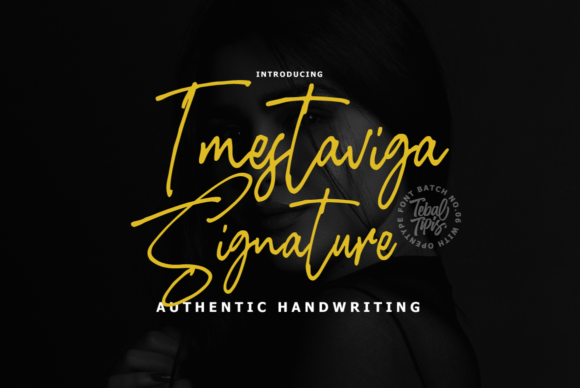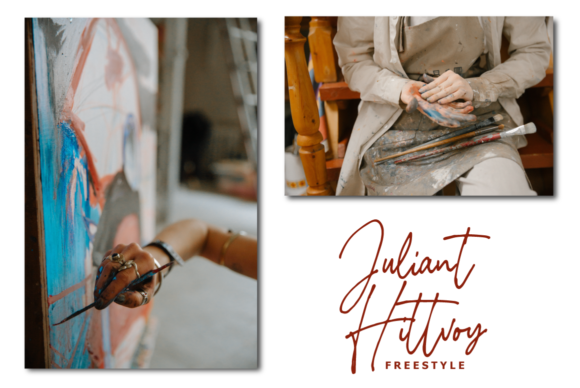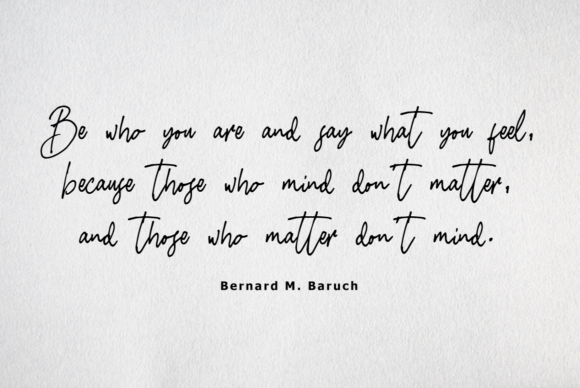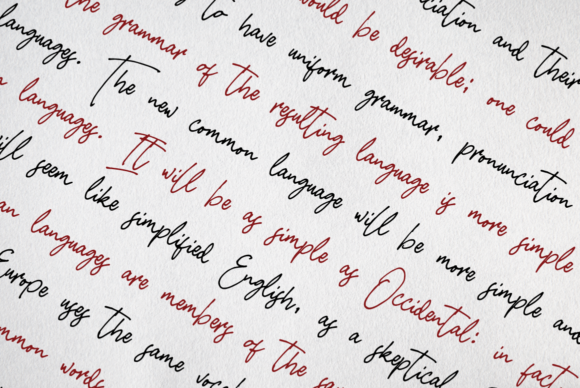
Unleashing the Art of Handwritten Elegance: Imestaviga Signature Font
There’s something magical about the moment when a creative idea strikes, and you know exactly the perfect tool to bring it to life. For designers, that ‘aha’ moment often involves the perfect font – the one that adds a touch of personality and style to a project. And for those looking to add a handwritten touch to their designs, Imestaviga Signature Font is a game-changer.
This stylish and elegant script font is perfect for making a statement on wedding invitations, thank you cards, quotes, and business cards. Its versatility and sophistication make it a valuable asset for designers looking to elevate their designs and leave a lasting impression. With Imestaviga Signature Font, the possibilities are endless, and the results are always breathtaking.
Imestaviga Signature Font Key Features
- Font Family: A unique, handwritten font designed for personal and professional use.
- Unique Characteristics: Features a distinctive, cursive style with flourishes and swashes, perfect for creating a personal touch in branding and signature designs.
Designer Review: Imestaviga Signature Font
Overall, I think the Imestaviga Signature Font is a solid choice for those looking for a unique, handwritten font. It’s got a lot of character and can add a personal touch to your designs.
- ✨ Unique and creative design: The font’s cursive style and varying line widths give it a hand-written feel that’s perfect for adding a personal touch to your designs.
- ✨ Versatile: It’s suitable for a wide range of projects, from invitations and greeting cards to logos and branding materials.
- ✨ Good legibility: Despite its cursive design, the font is still easy to read, making it a great choice for body text or headlines.
- ⚠️ Limited language support: The font only includes a standard Latin character set, which may limit its use for projects that require support for other languages.
- ⚠️ Not ideal for small text sizes: The font’s cursive design can make it difficult to read at small text sizes, so it’s best to use it for headings or larger body text.
- ⚠️ May require adjustments: Depending on the project, you may need to adjust the font’s spacing or kerning to get the best results.
Overall, I’d give the Imestaviga Signature Font 4 out of 5 stars. It’s a great choice for designers looking for a unique, handwritten font, but it may not be the best option for projects that require extensive language support or small text sizes.
Tips for Getting the Most Out of Imestaviga Signature Font
Here are a few tips to help you get the most out of Imestaviga Signature Font:
- Combine Imestaviga Signature Font with other fonts to create a visually appealing design.
- Use Imestaviga Signature Font for headings, titles, and other important text elements.
Alternatives to Imestaviga Signature Font for Designers
Abril Fatface is a beautiful, elegant font ideal for titles, headings, and logos. It features a classic, sophisticated look that is perfect for luxury brands, high-end products, and vintage-inspired designs.
Compared to Imestaviga Signature Font, Abril Fatface has a more classic and timeless feel, whereas Imestaviga has a more modern and unique touch.
Playfair Display is a luxurious, high-end font designed for titles, headings, and body text. It features a classic, elegant look with ornate details, making it perfect for luxury brands, high-end products, and sophisticated designs.
What is the recommended font size for the Imestaviga Signature Font?
The recommended font size for the Imestaviga Signature Font varies depending on the application and the intended use. As a general guideline, we recommend using font sizes between 12pt and 24pt for body text and 48pt to 72pt for headings. However, feel free to experiment with different font sizes to achieve the